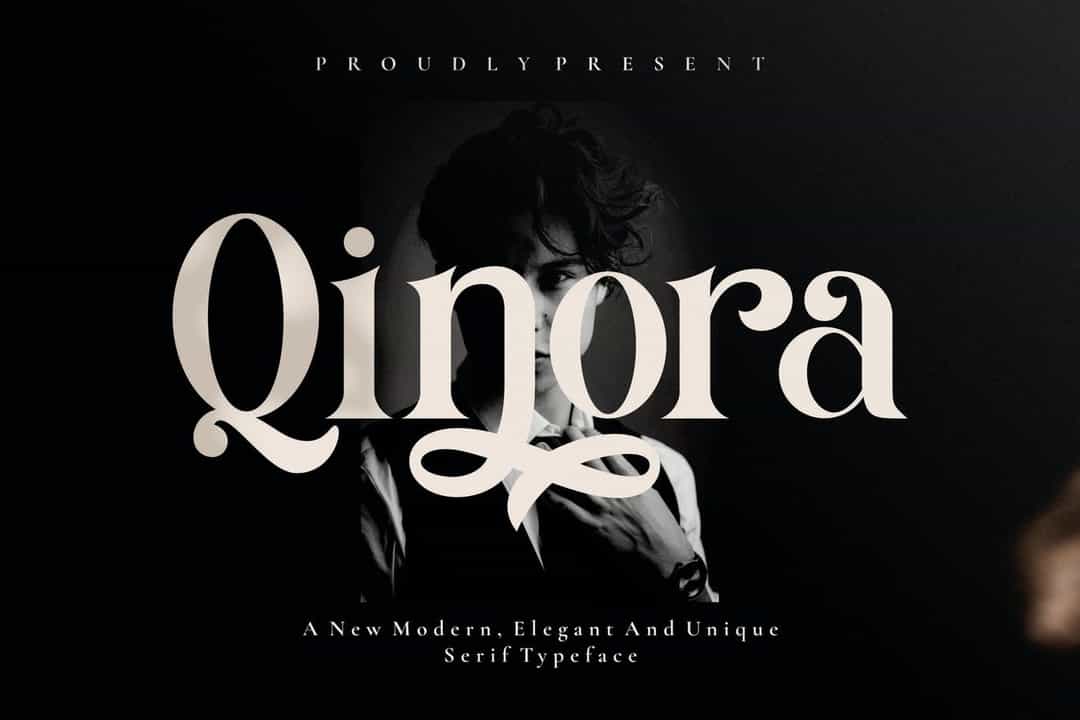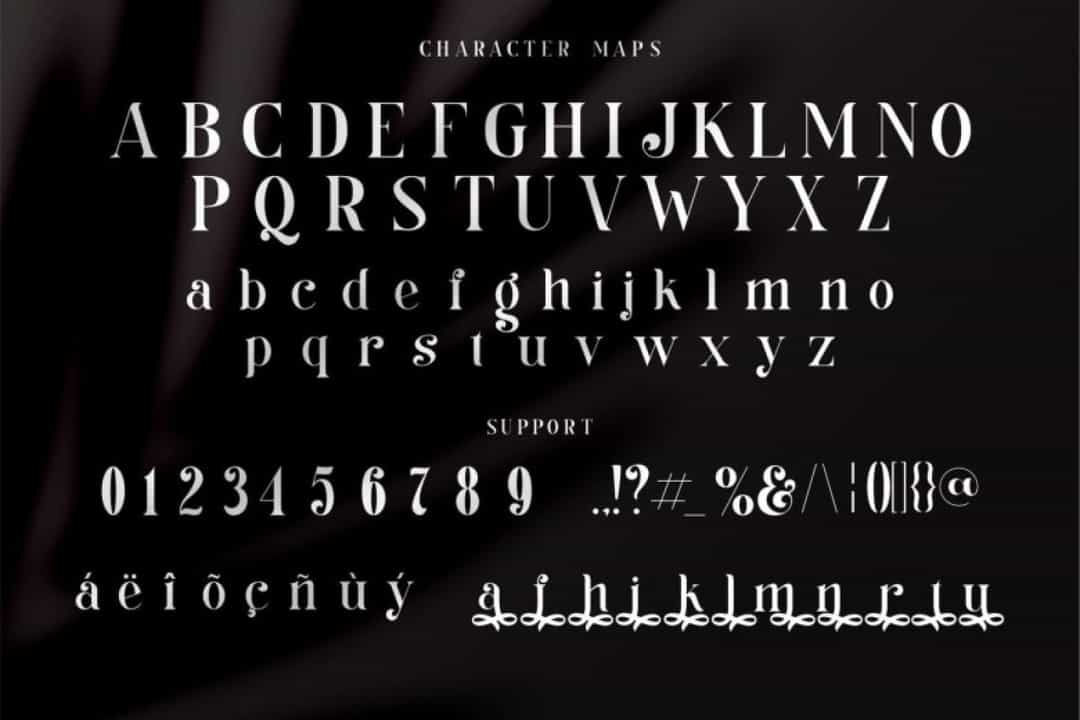
Qinora Font is a contemporary serif typeface with a distinct design, ideal for feminine logos and fashion heads as well as editorial designs. This lightweight yet high-contrast font can also be used in logos, branding designs, packaging magazine headers, advertisements and postcards among many other applications.